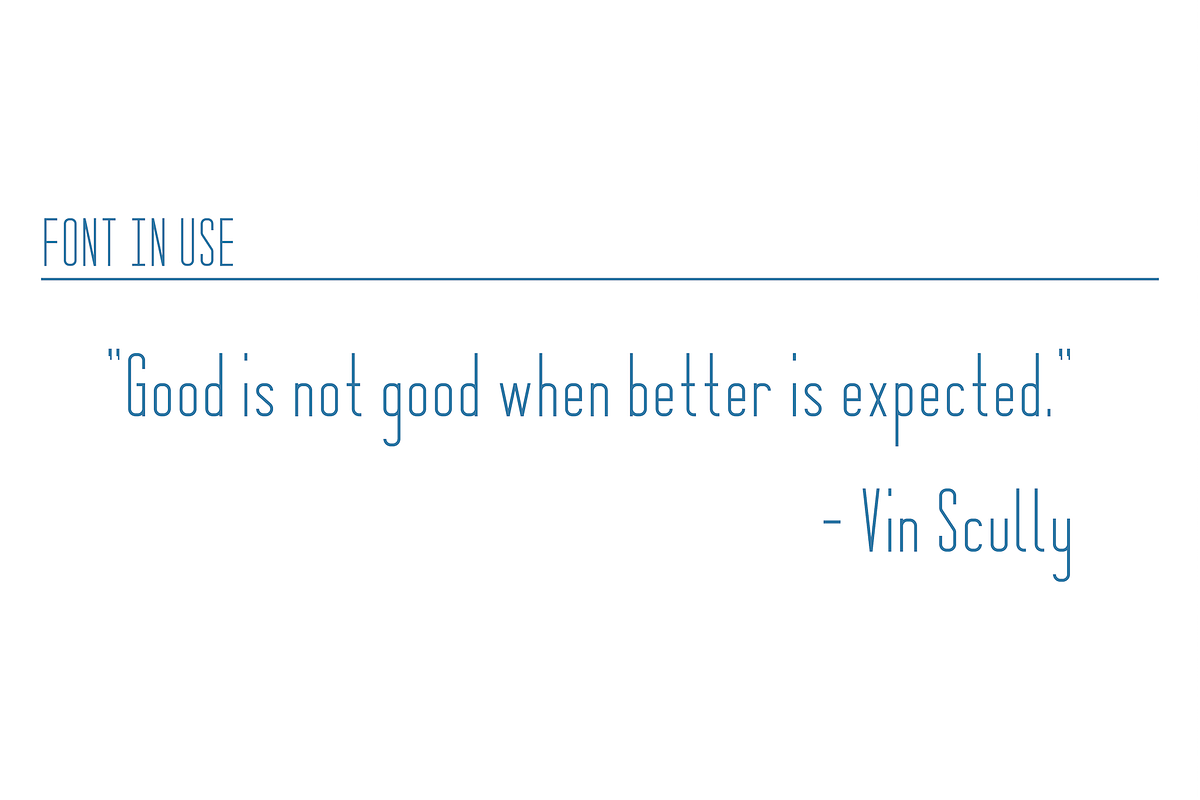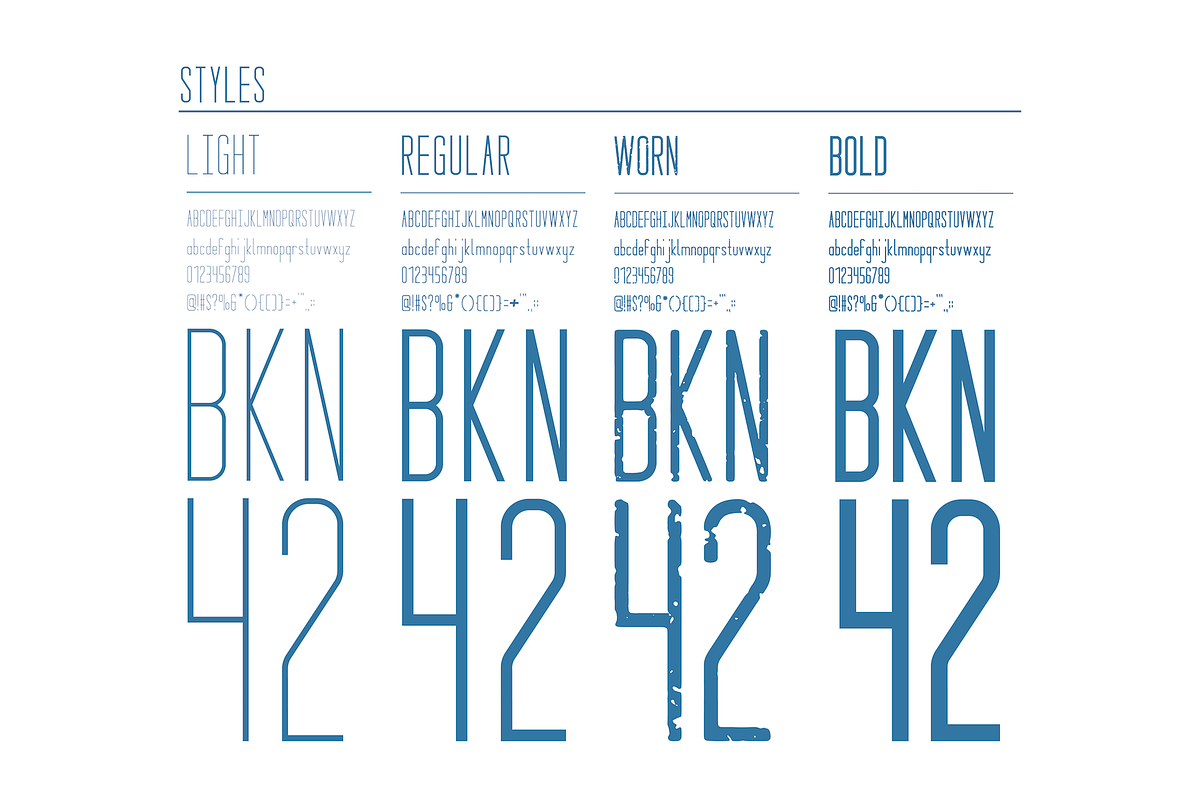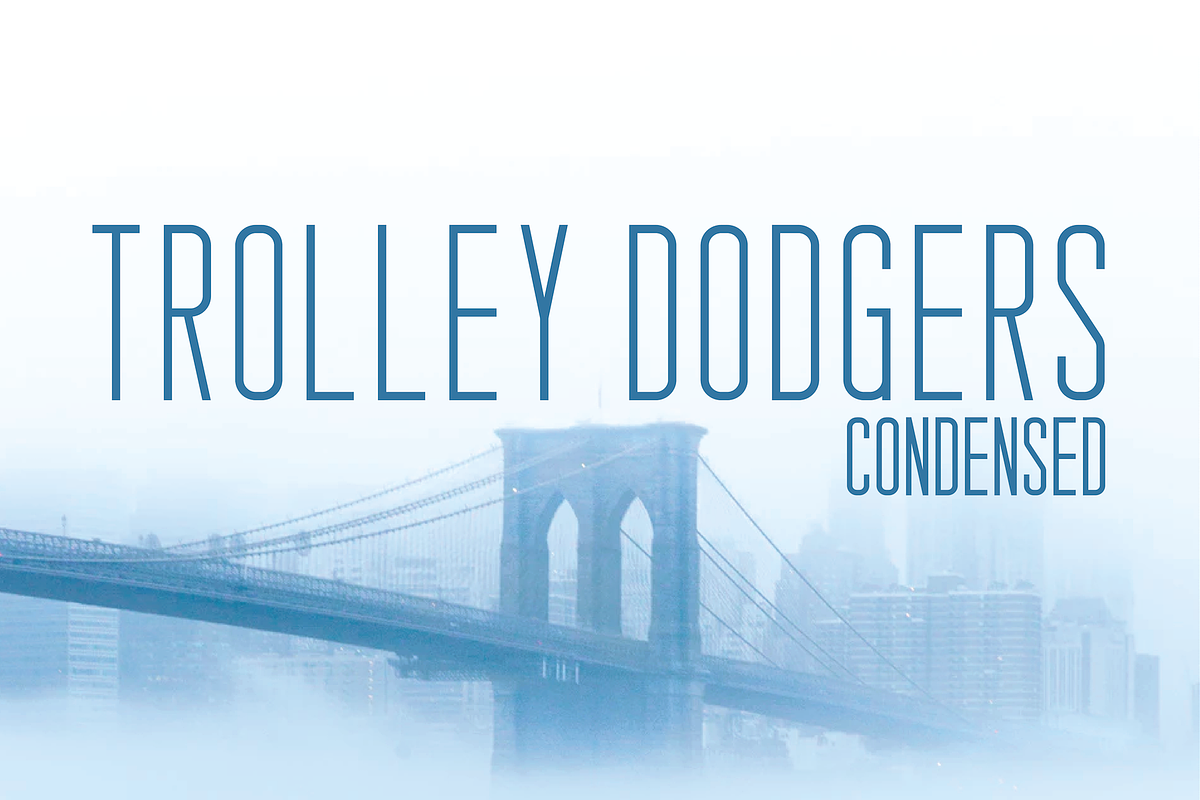
Trolley Dodgers Typeface
Trolley Dodgers is a typeface based on an appreciation for the hand painted letters on roads and parking lots we encounter everyday. Trolley Dodgers Condensed contains four styles, light, regular, bold, and worn, all with upper and lowercase letters as well as symbols. Trolley Dodgers Condensed is the first in a three part release, with Regular and Extended, in the same styles, to be released over 2018.
- Trolley Dodgers Condensed contains four styles, light, regular, bold, and worn, all with upper and lowercase letters as well as symbols.
Why Trolley Dodgers Typeface is worth a look
Trolley Dodgers Typeface by Nathan Dawdy fits naturally into Branding, posters, packaging, typography.